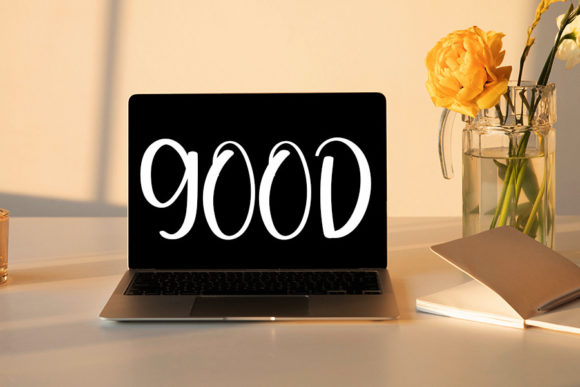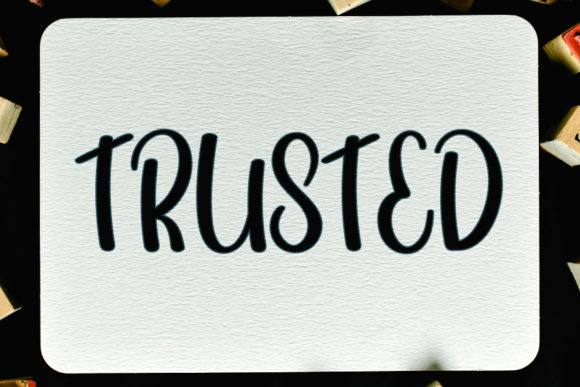
Maximum Font
db-ku.com - Script & Handwritten -- Maximum is a cool and trendy looking handwritten font with a modern vibe and spotless form, inspired by a classic calligraphy. Not too thin and not too thick, balanced and varied, this font was designed to enhance the beauty of your projects.